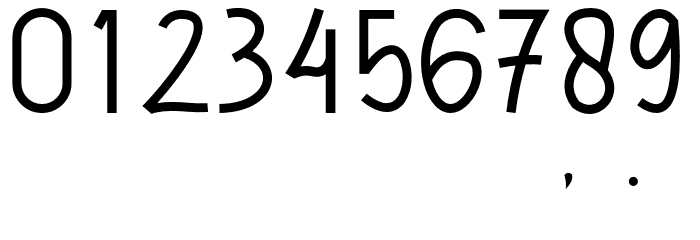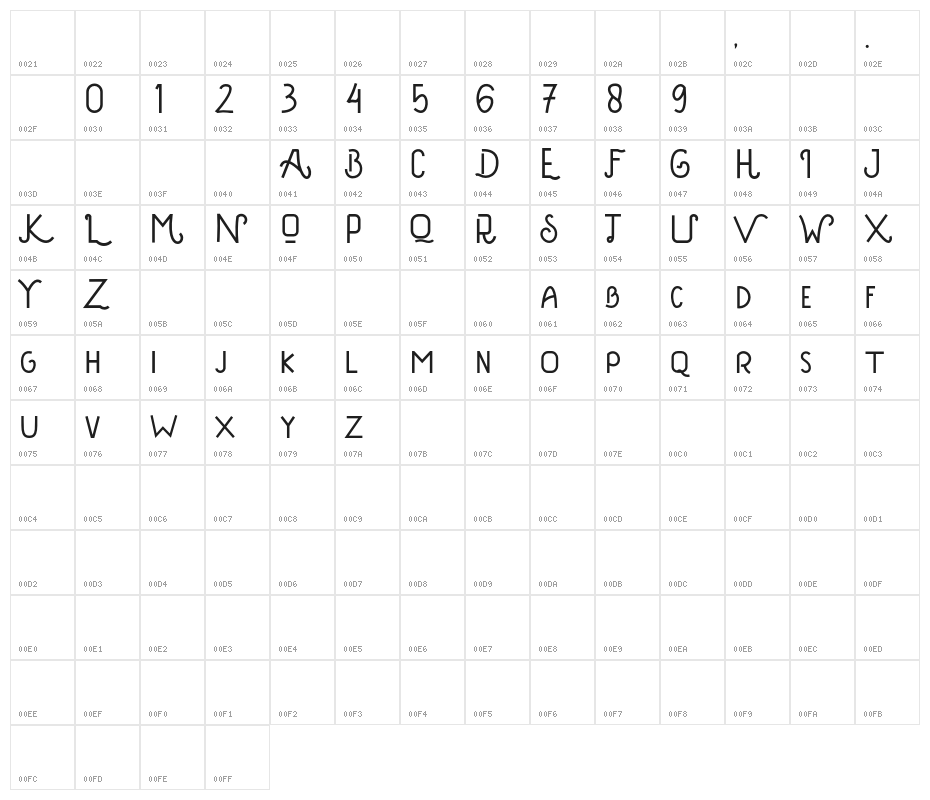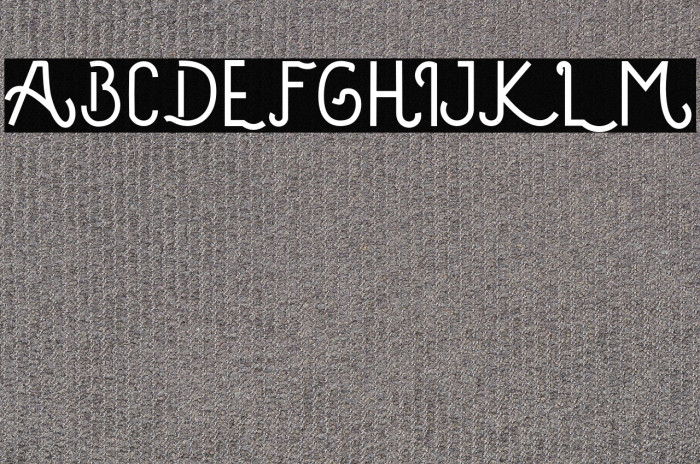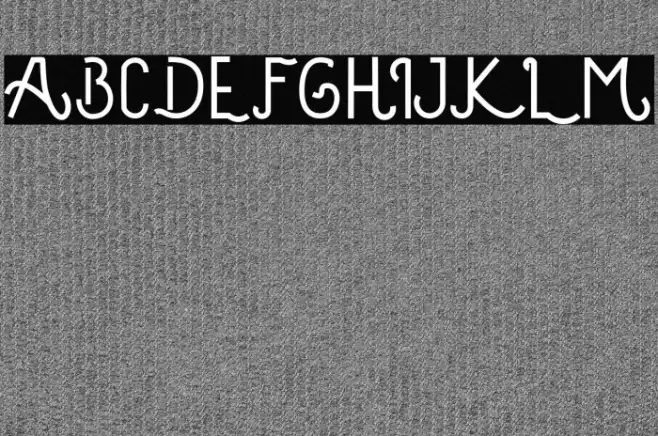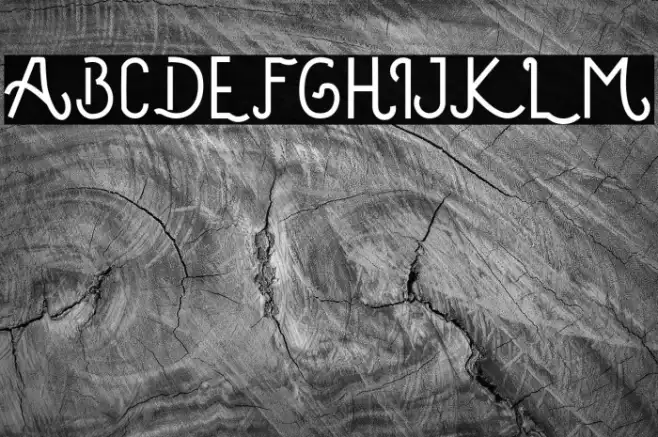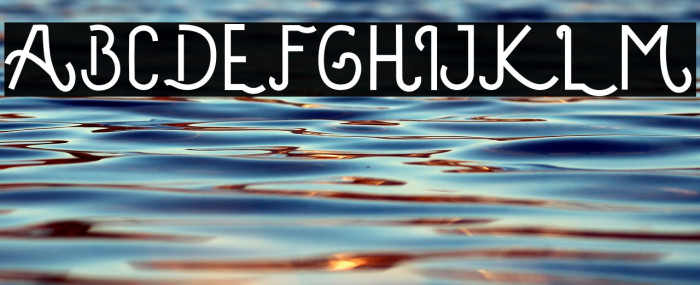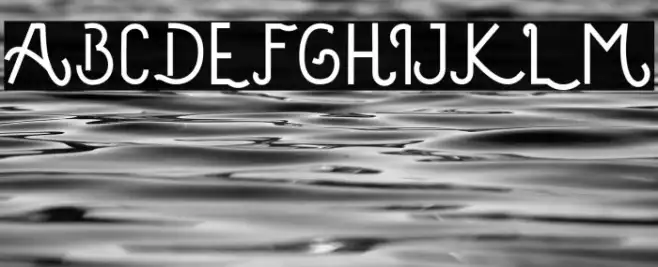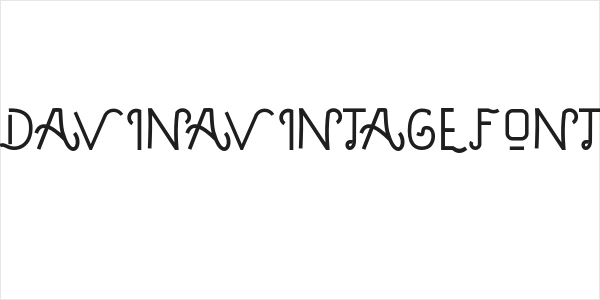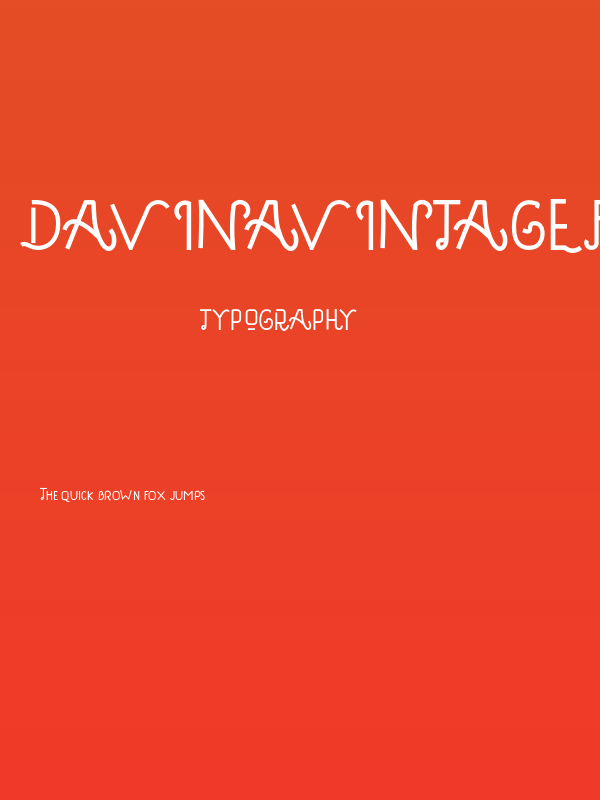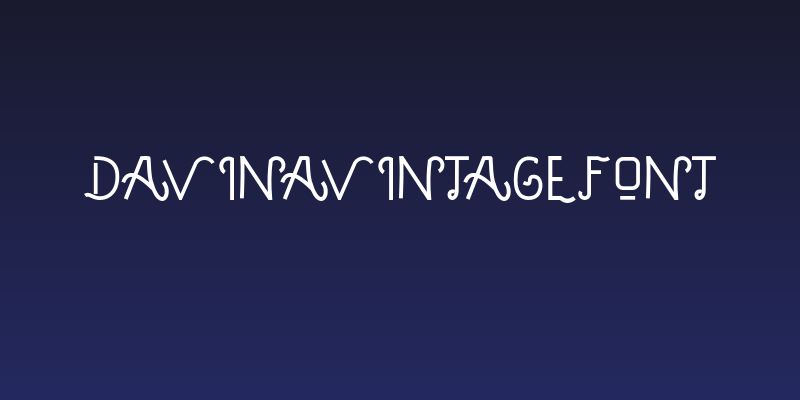
DAVINAVINTAGEFONT Font
DAVINAVINTAGEFONT Description
This font features a unique blend of vintage and modern elements, characterized by its decorative and artistic flair. The uppercase letters exhibit a playful yet sophisticated style with varying line thicknesses and subtle curves, giving it a hand-drawn appearance. The lowercase letters maintain a consistent design, complementing the uppercase with a slightly more restrained aesthetic. Numbers are bold and clear, ensuring readability while maintaining the font's overall artistic theme. Special characters are creatively designed, adding to the font's versatility and charm.